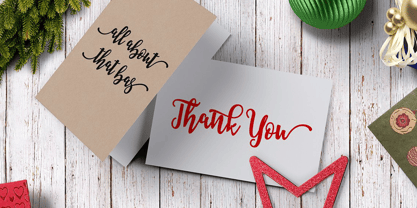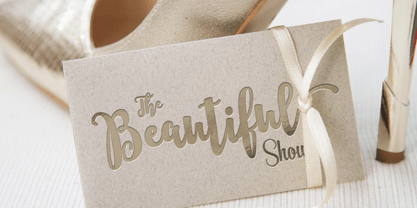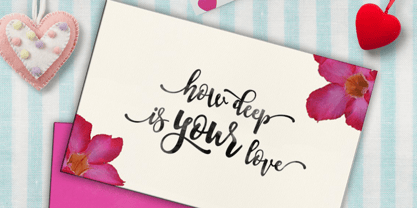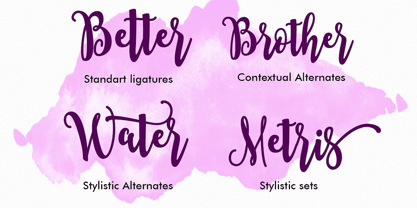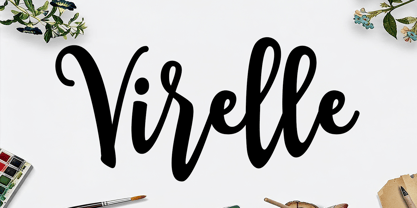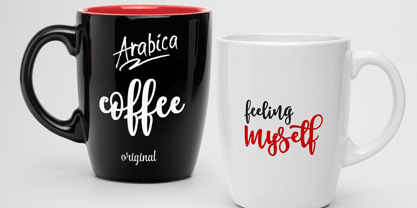
Virelle
Virelle – Calligraphy Script Font
Virelle is an elegant calligraphy script font that captures the beauty of modern handwriting with a sophisticated and luxurious touch. Designed with flowing strokes, graceful curves, and naturally connected letterforms, Virelle delivers a refined aesthetic that feels both timeless and contemporary.
Inspired by the art of classic calligraphy, Virelle features smooth transitions and delicate details that create a harmonious writing rhythm. Its stylish character makes it perfect for premium branding, wedding stationery, signature logos, packaging, editorial designs, and social media content that requires a touch of elegance.
Whether you're crafting a romantic invitation, designing a luxury brand identity, or creating beautiful typography artwork, Virelle brings charm, grace, and professionalism to every project.
Features
• Elegant calligraphy script style
• Smooth and natural handwritten flow
• Beautiful swashes and graceful curves
• Uppercase and lowercase characters
• Numerals and punctuation
• Ligatures and stylistic alternates
• Multilingual support
• Suitable for both print and digital use
Perfect For
• Wedding invitations
• Luxury branding
• Signature logos
• Beauty and fashion brands
• Product packaging
• Greeting cards
• Editorial layouts
• Social media graphics
• Photography watermarks
• Quotes and typography designs